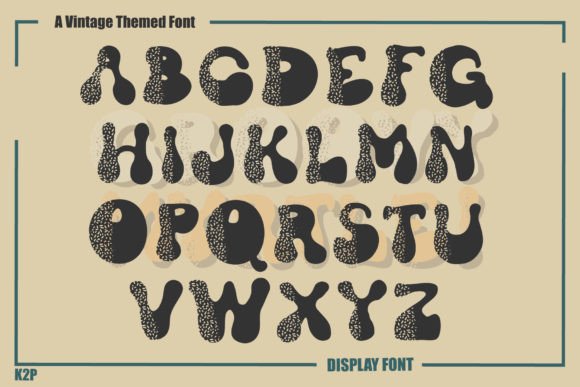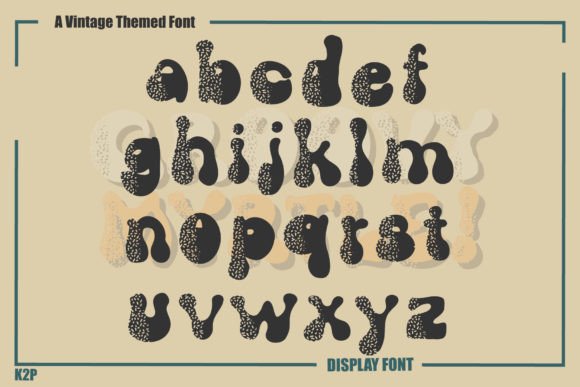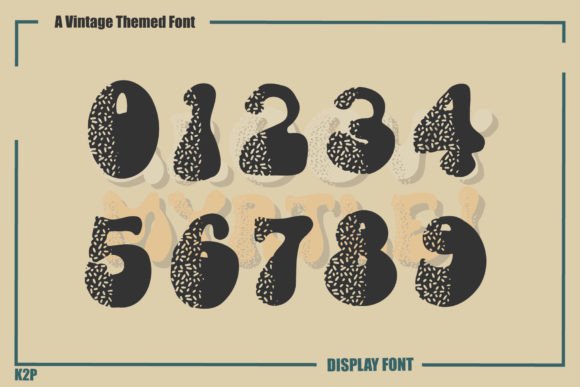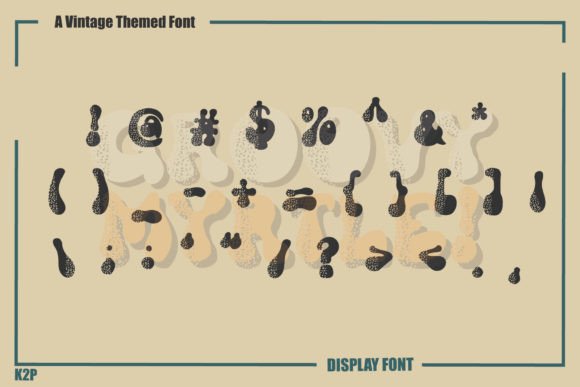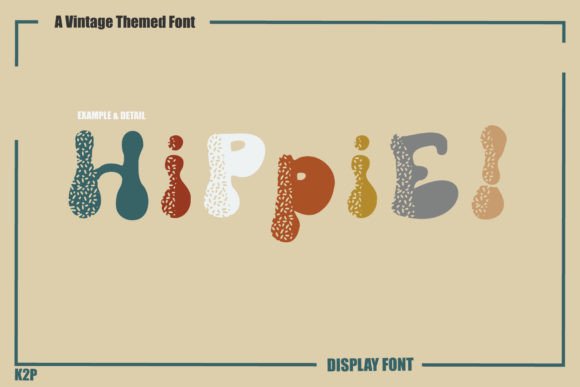
Groovy Myrtle Font: The Ultimate Retro Display Font for Your Designs
Are you looking for a font that adds a touch of nostalgia and playfulness to your designs? Look no further than the Groovy Myrtle font! This fun, retro, and whimsical display font is sure to capture the hearts of designers and crafters alike with its incredibly distinct and timeless style.
What Makes Groovy Myrtle Font So Special?
Groovy Myrtle font is a one-of-a-kind display font that boasts a unique and captivating style. Its retro vibe is reminiscent of the 1960s and 1970s, making it perfect for designs that require a dash of nostalgia and fun. The font’s whimsical nature makes it ideal for use in a variety of design projects, from posters and flyers to social media graphics and craft projects.
Key Features of Groovy Myrtle Font
- Retro and Whimsical Style: Groovy Myrtle font features a distinct retro and whimsical style that is sure to add a touch of fun and playfulness to your designs.
- Distinct and Timeless: The font’s unique style is both timeless and trendy, making it perfect for designs that require a classic yet modern look.
- Display Font: Groovy Myrtle font is a display font, making it ideal for use in headlines, titles, and other design elements that require a bold and eye-catching font.
Uses for Groovy Myrtle Font
Groovy Myrtle font is a versatile font that can be used in a variety of design projects, including:
- Posters and Flyers: Add a touch of nostalgia and fun to your posters and flyers with Groovy Myrtle font.
- Social Media Graphics: Use Groovy Myrtle font to create eye-catching social media graphics that are sure to grab the attention of your followers.
- Craft Projects: Groovy Myrtle font is perfect for use in craft projects, such as scrapbooking, card making, and other paper crafts.
- Branding and Packaging: Use Groovy Myrtle font to add a touch of whimsy and fun to your branding and packaging designs.
Tips for Using Groovy Myrtle Font
Here are a few tips for using Groovy Myrtle font in your designs:
- Use it as a Headline Font: Groovy Myrtle font is perfect for use as a headline font, where its bold and eye-catching style can really shine.
- Pair it with Other Fonts: Experiment with pairing Groovy Myrtle font with other fonts to create a unique and interesting look.
- Use it in Color: Groovy Myrtle font looks great in color, so don’t be afraid to experiment with different colors and color combinations.
Groovy Myrtle font is a fun, retro, and whimsical display font that is sure to add a touch of nostalgia and playfulness to your designs. With its incredibly distinct and timeless style, it’s the perfect font for designers and crafters who want to create spectacular designs that stand out from the crowd. So why wait? Fall in love with Groovy Myrtle font and start creating amazing designs today!